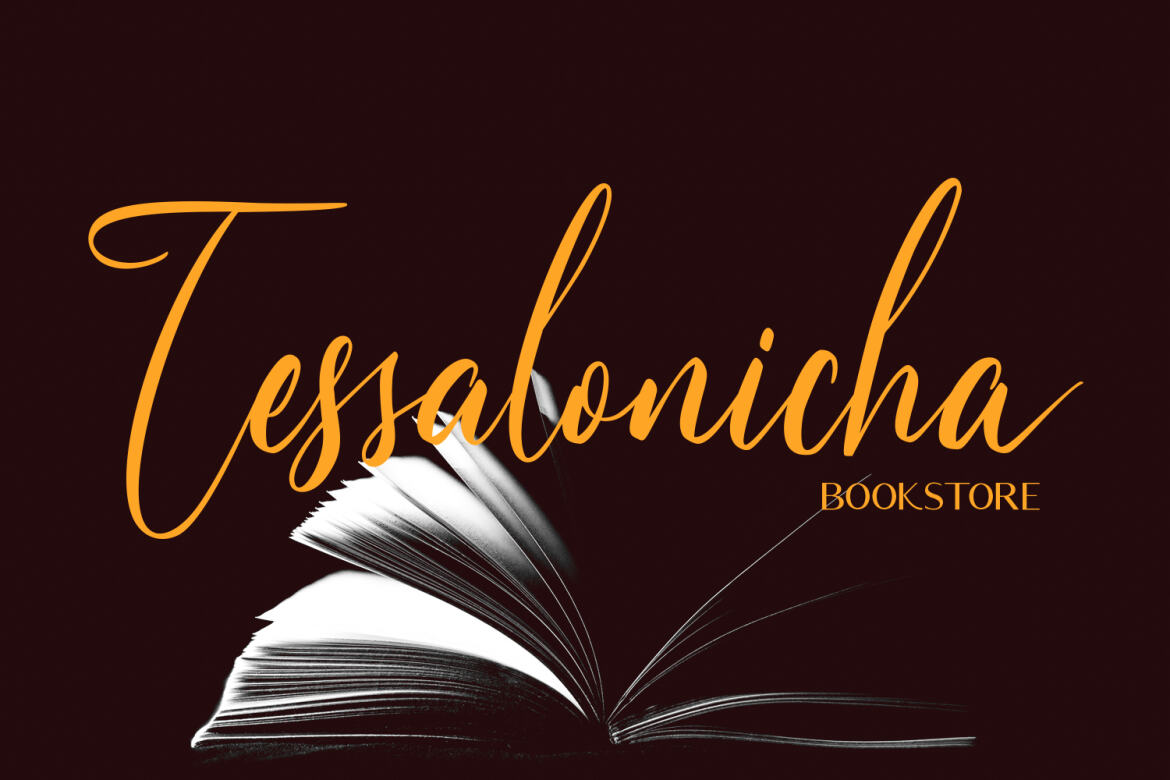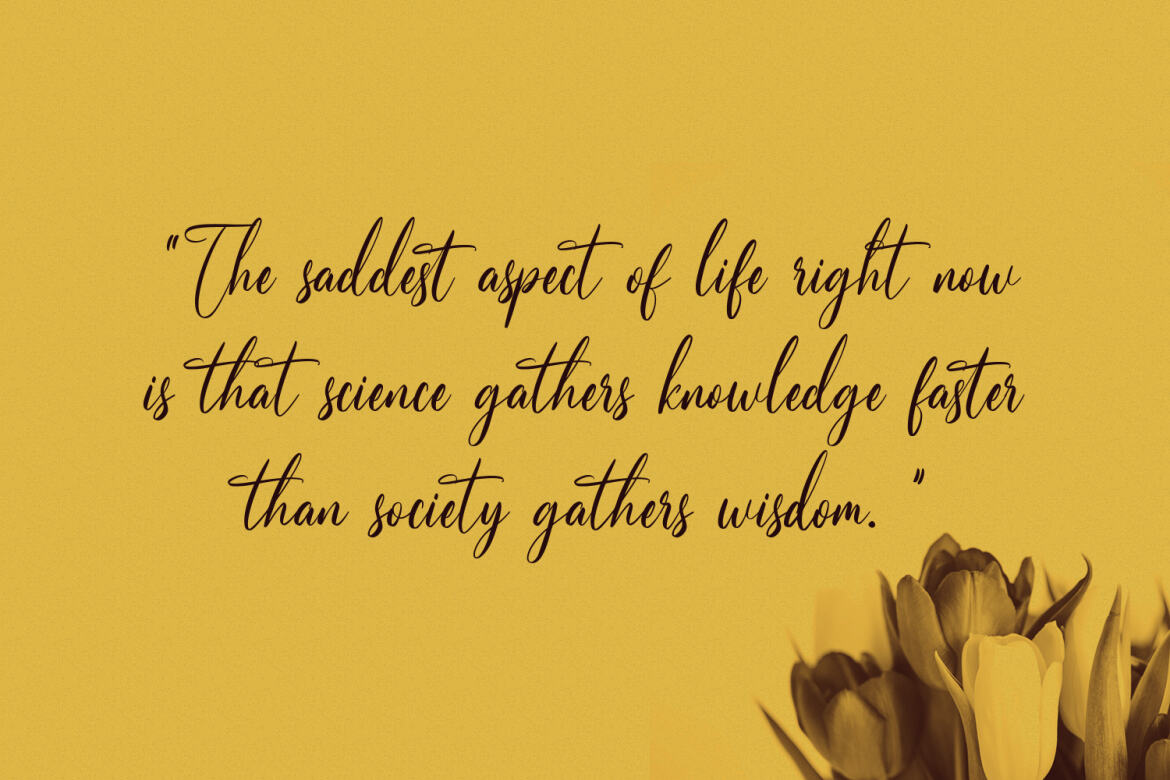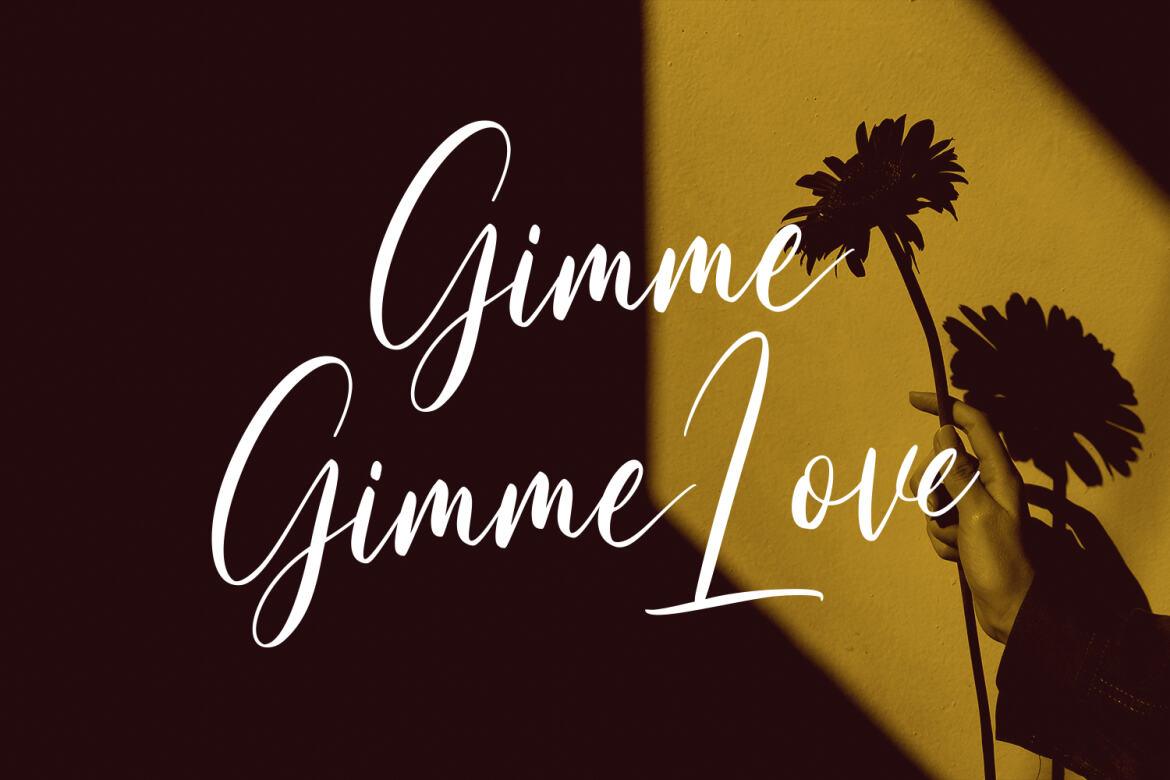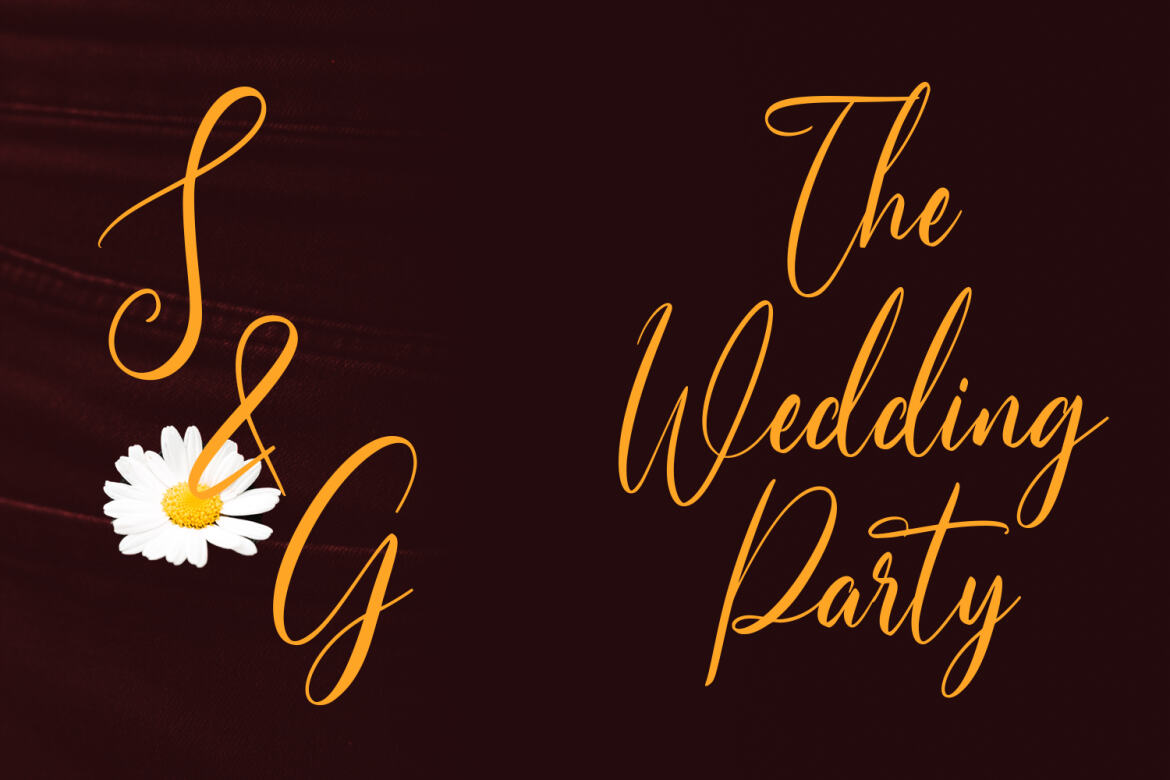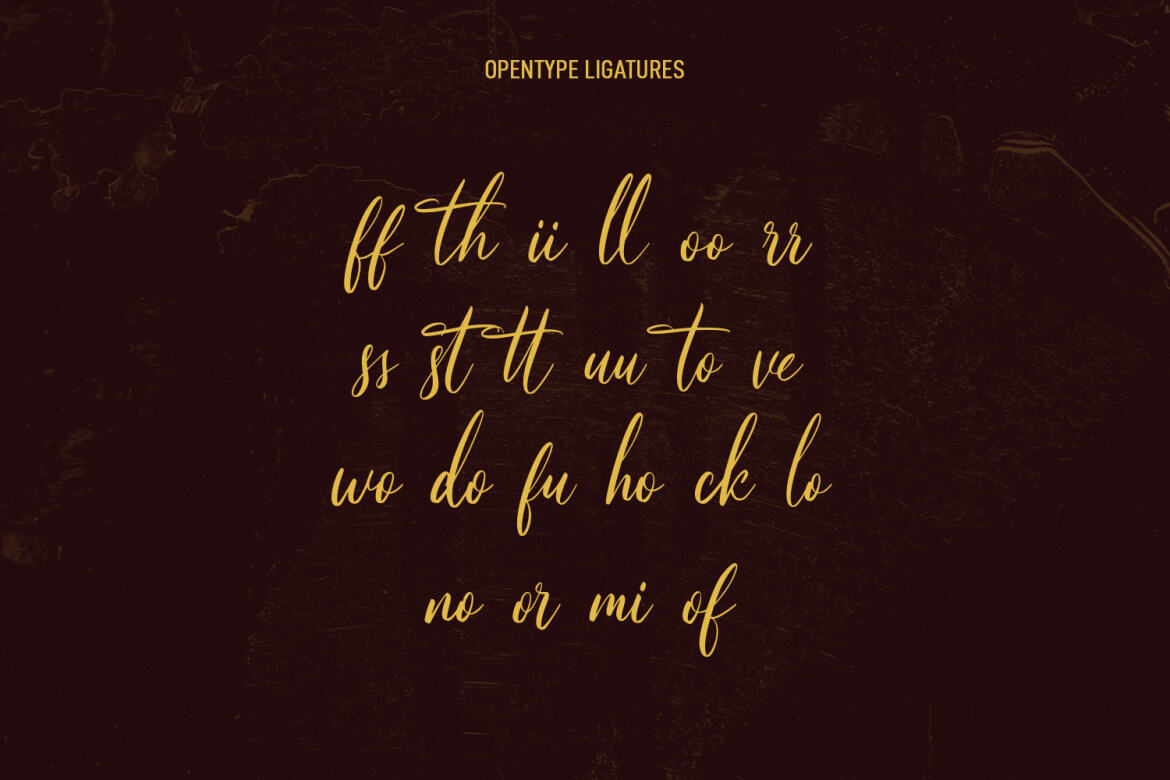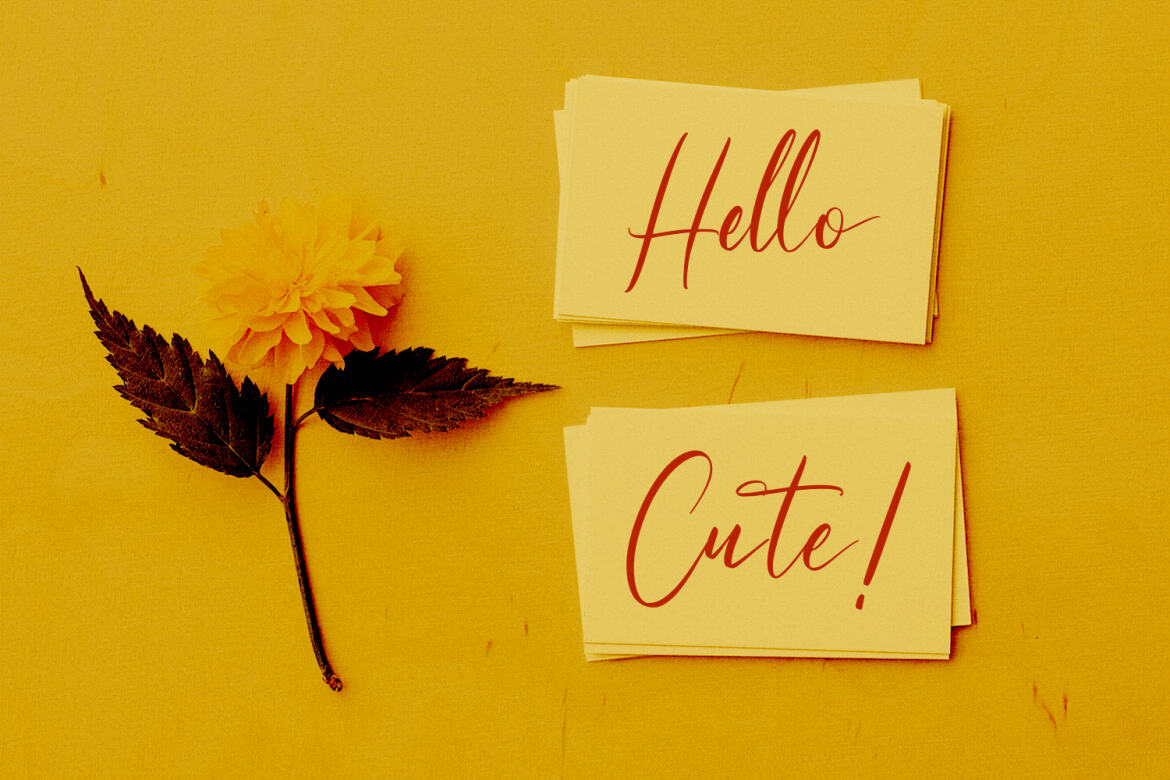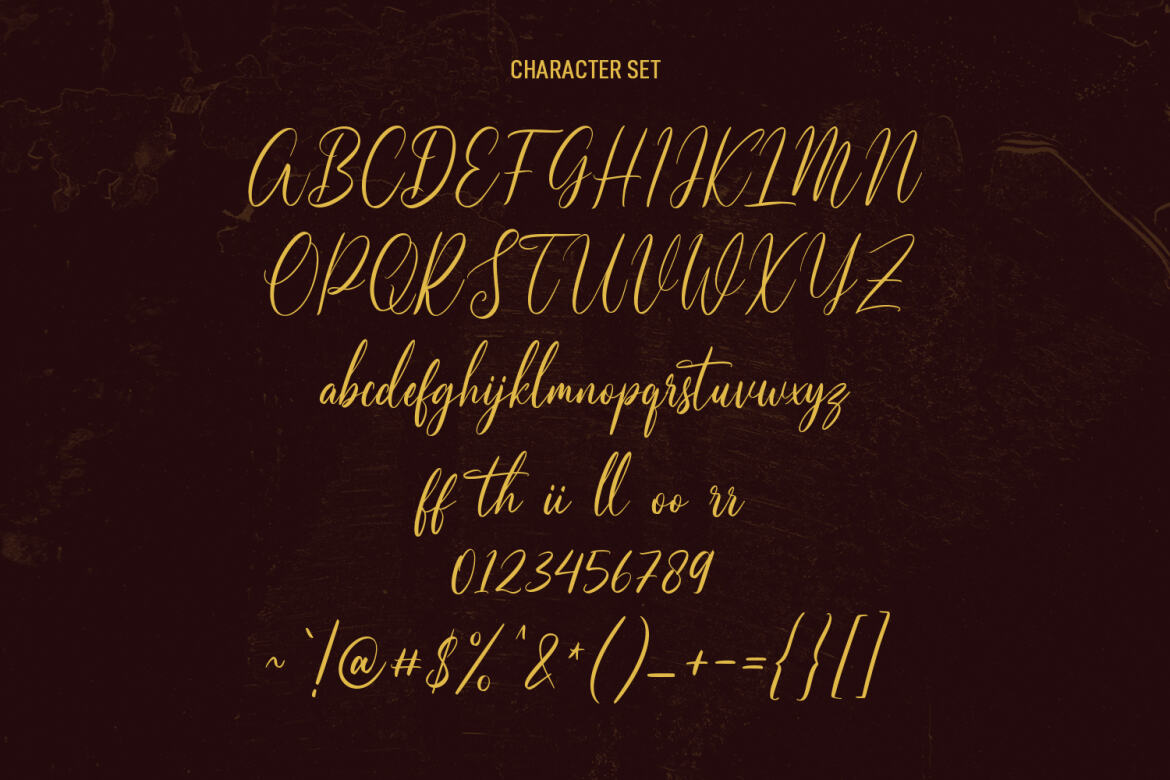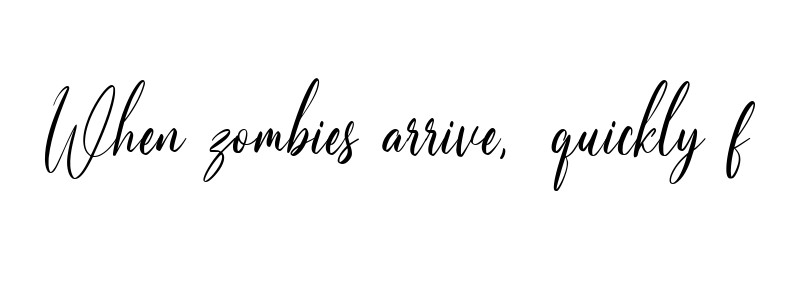
Tiffanka - Free Script Font
Tiffanka
Tiffanka is a Modern Script font. With thin contrast stroke, fun character with a bit of ligatures and lowercase alternate. To give you an extra creative work. Tiffanka font support multilingual more than 100+ language. This font is good for logo design, Social media, Movie Titles, Books Titles, a short text even a long text letter and good for your secondary text font with sans or serif. Make a stunning work with Tiffanka font.